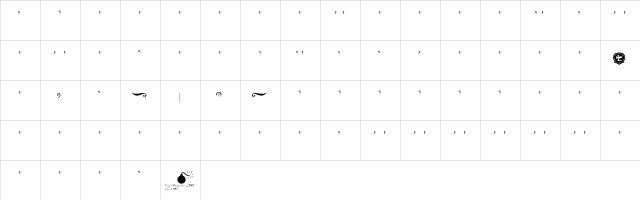
LHF Antique Shop Deco 2 Regular
| Foundry | Chuck Davis for Letterhead Fonts |
| Designer | Chuck Davis |
Design Context for LHF Antique Shop Deco 2 Typeface
LHF Antique Shop Deco 2 has the warm character of retro typography — evoking diners, record sleeves, and the golden age of print advertising.
Font Pairing: Combine LHF Antique Shop Deco 2 with a simple slab or neutral sans — period-accurate companions reinforce the vintage feel without competing for attention.
Pro Tip: Use LHF Antique Shop Deco 2 for headlines and pull quotes rather than body copy — its personality is best appreciated in short, focused bursts.